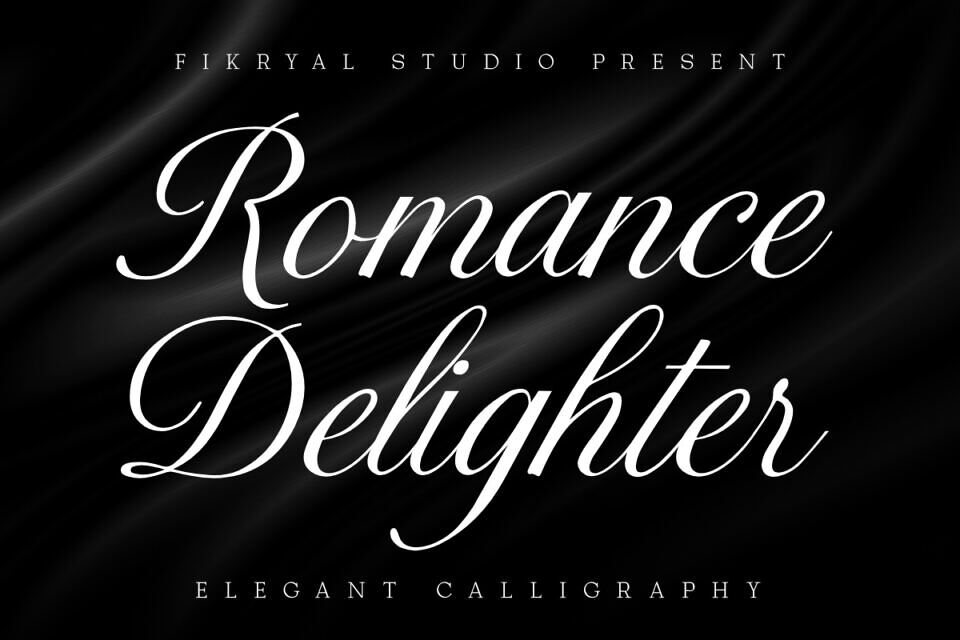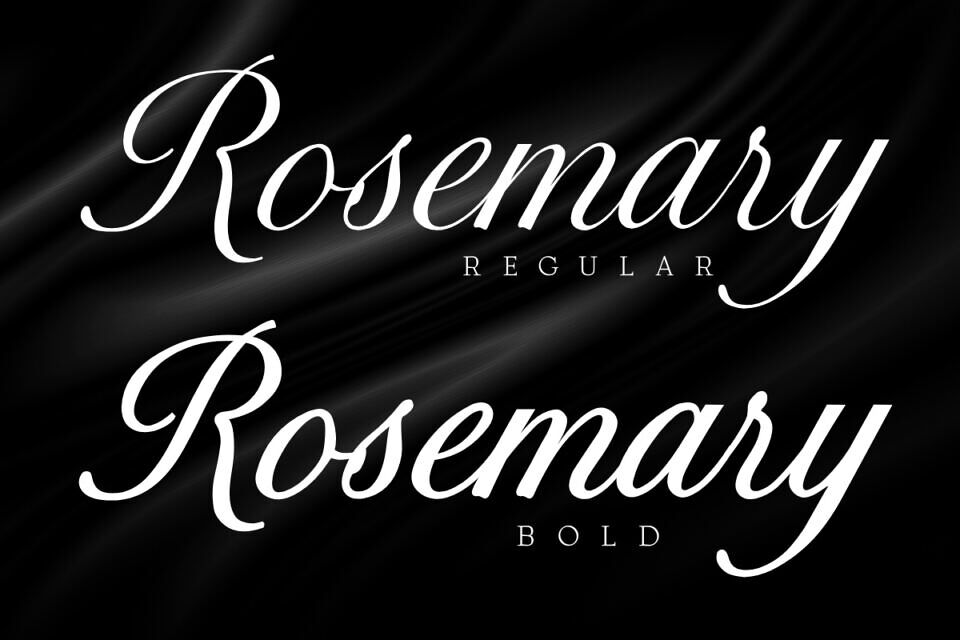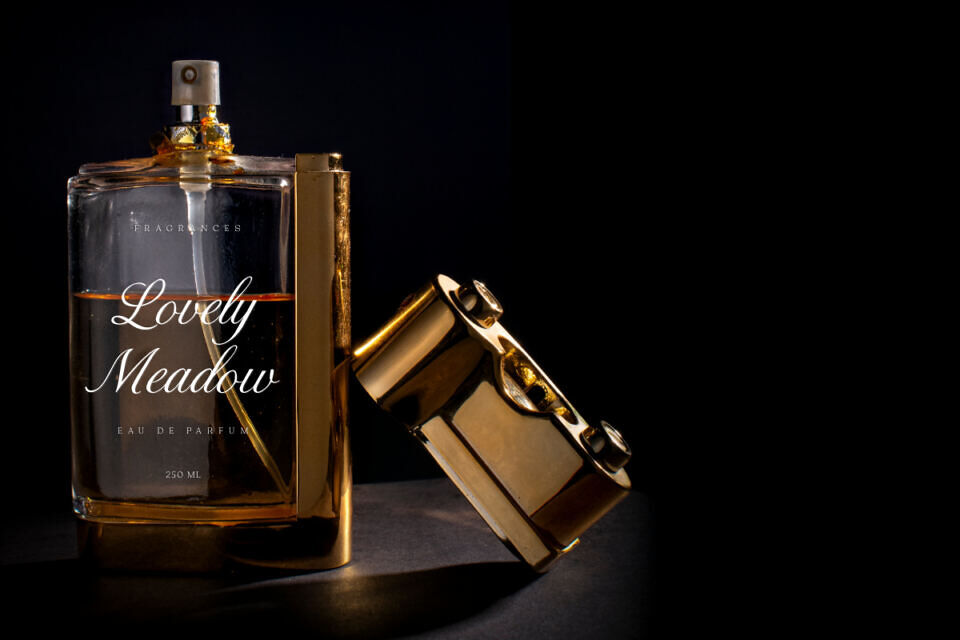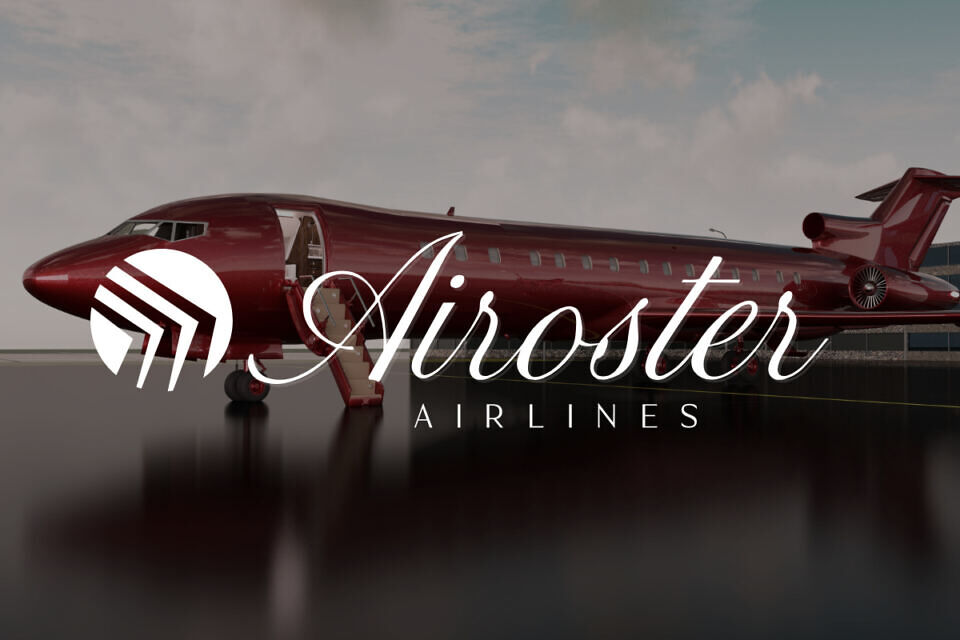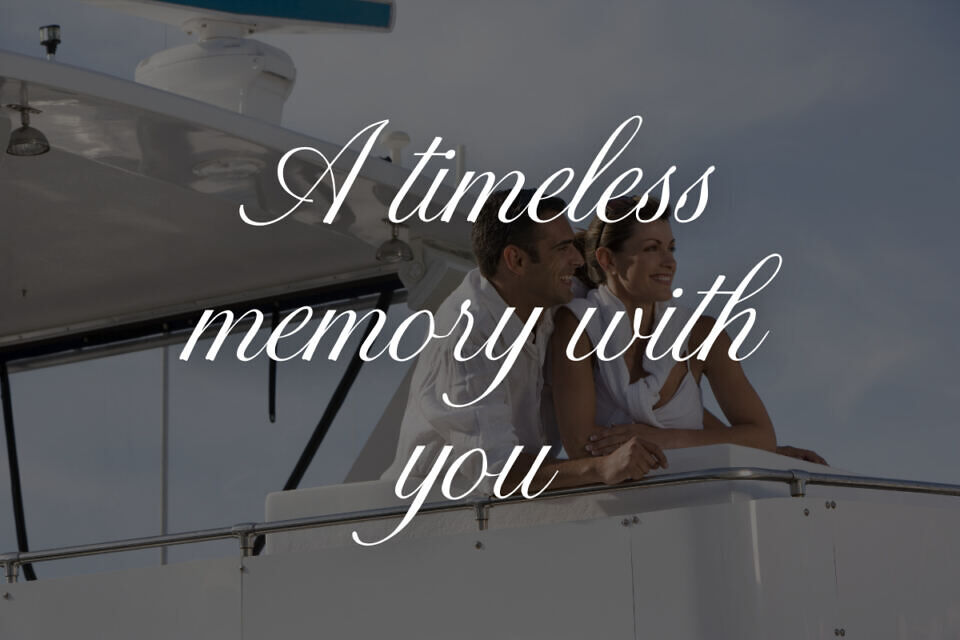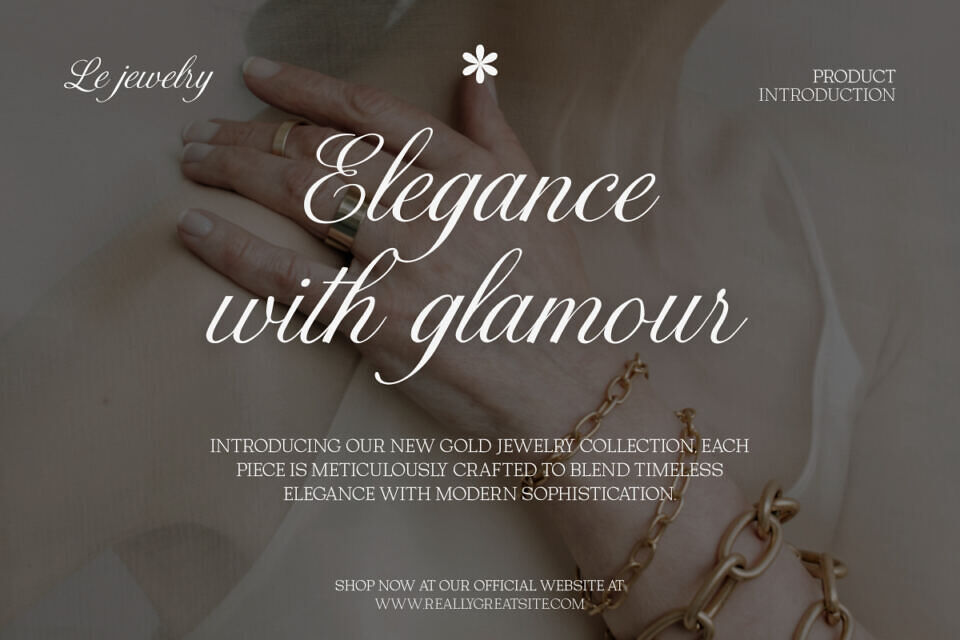
Romance Delighter Font
Romance Delighter is an elegant calligraphy script font that brings timeless beauty and sophistication to your design projects. Featuring two luxurious weights — Regular and Bold — this font is thoughtfully designed with graceful curves, natural flow, and refined detail.
Complete with lovely ligatures and beautiful alternates, Romance Delighter adds a romantic and premium touch to every word you type. Perfectly suited for high-end branding, cosmetic packaging, luxury wedding invitations, logos, and editorial designs, this typeface was made to shine in projects that demand elegance and exclusivity.